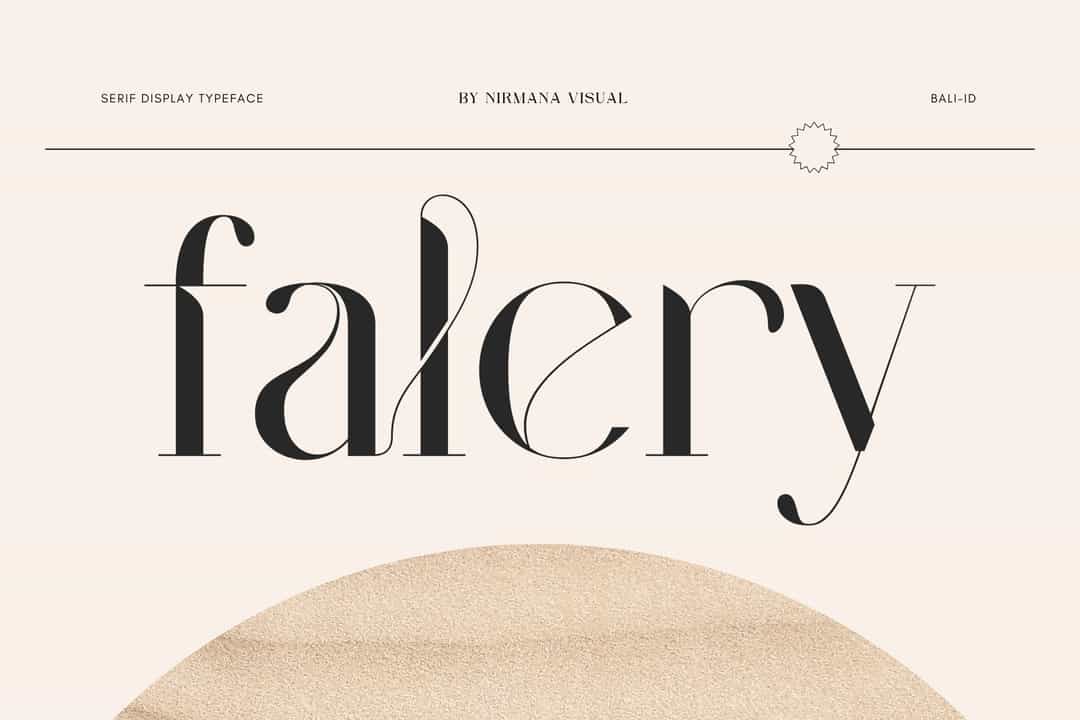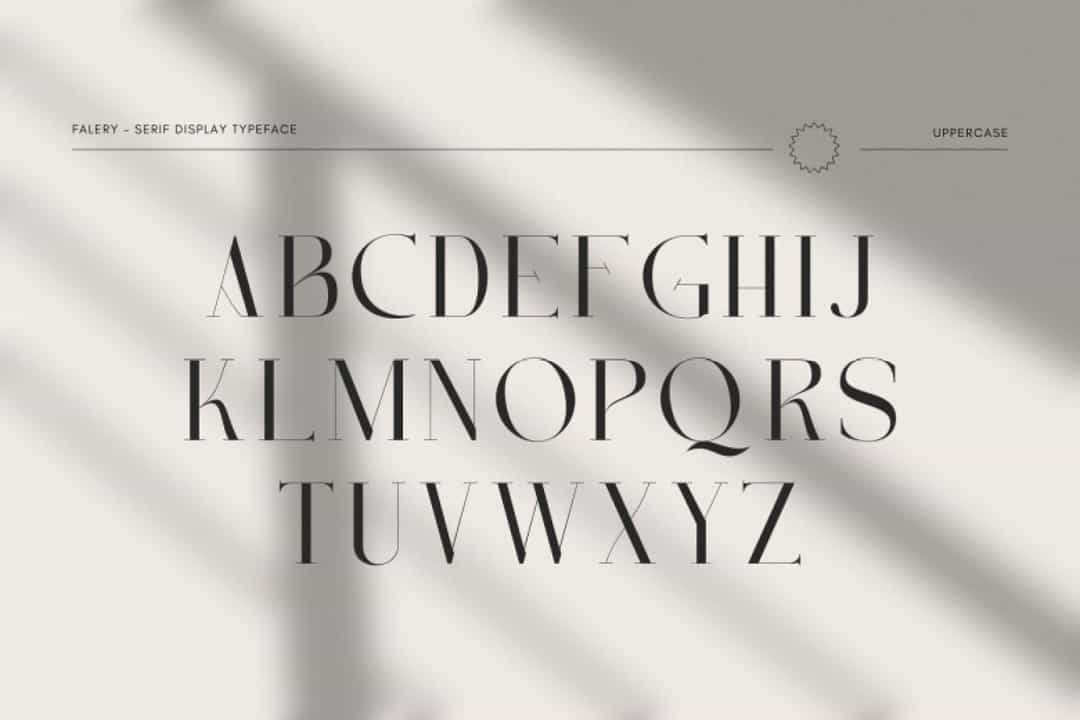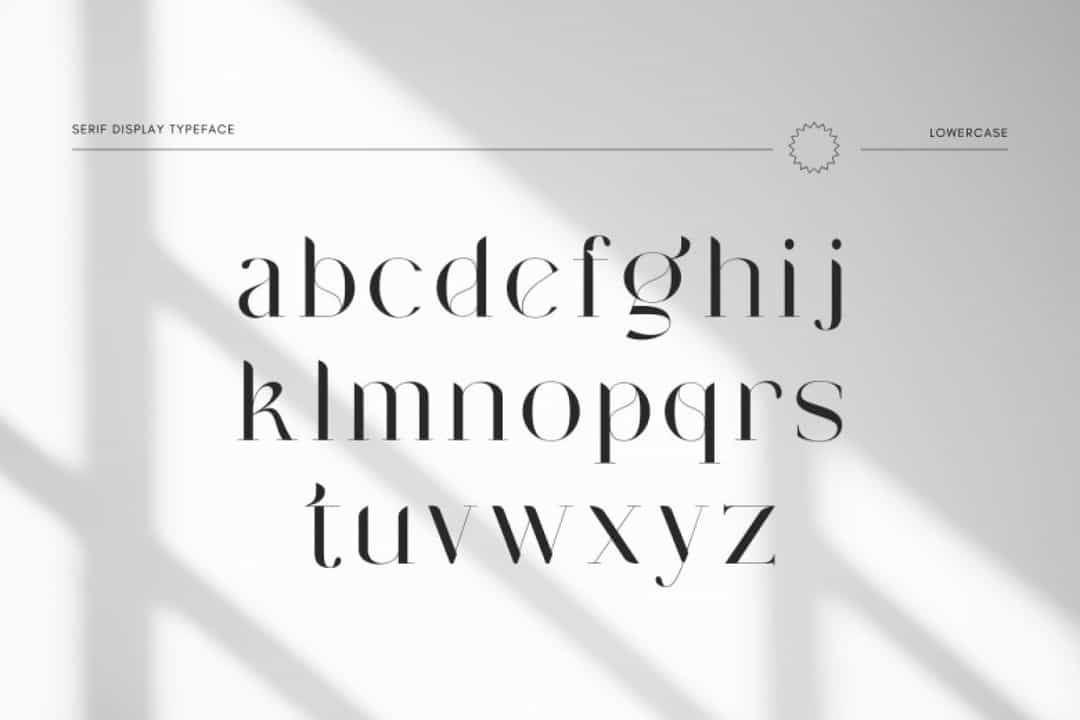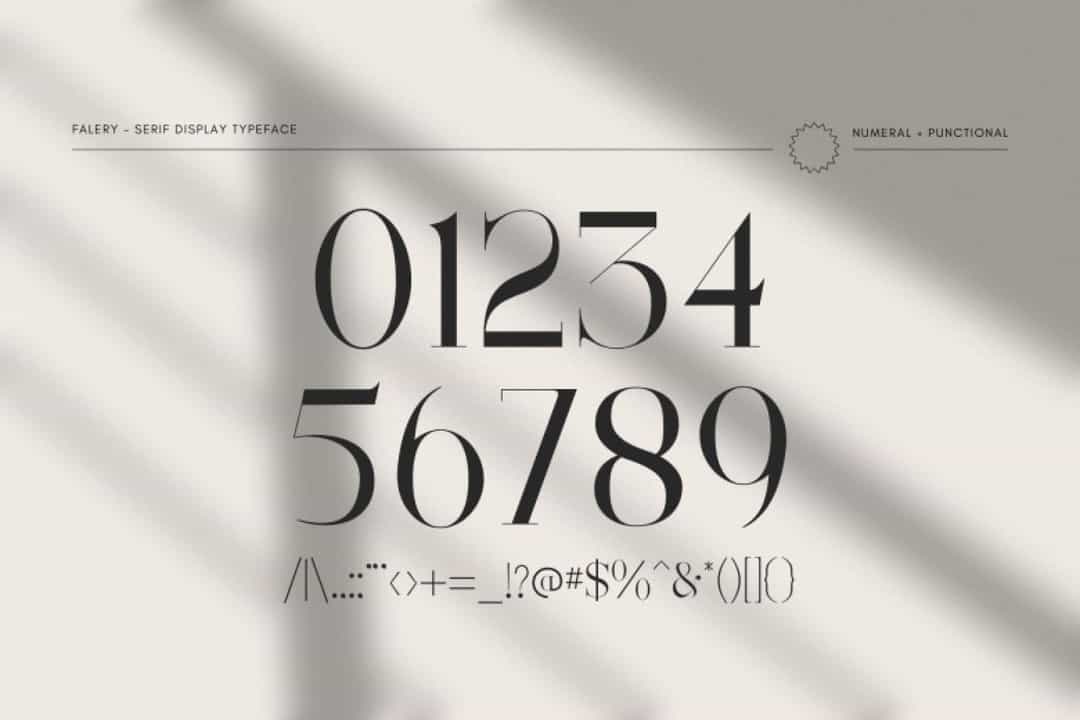
Discover Falery Font, part of the Serif Display collection—a versatile and unique font perfect for adding a personal touch to your projects. Download it for free and enjoy crafting designs with style, from invitations to social media posts. This font is available exclusively for personal use, giving you the freedom to create without limits. Unlock your creativity with Falery Font today!
Falery Modern Logo Display for Branding serif Font is an exquisite font with striking typographic harmony that works beautifully across many design projects such as logos and branding projects, social media posts, advertising collateral and product designs.